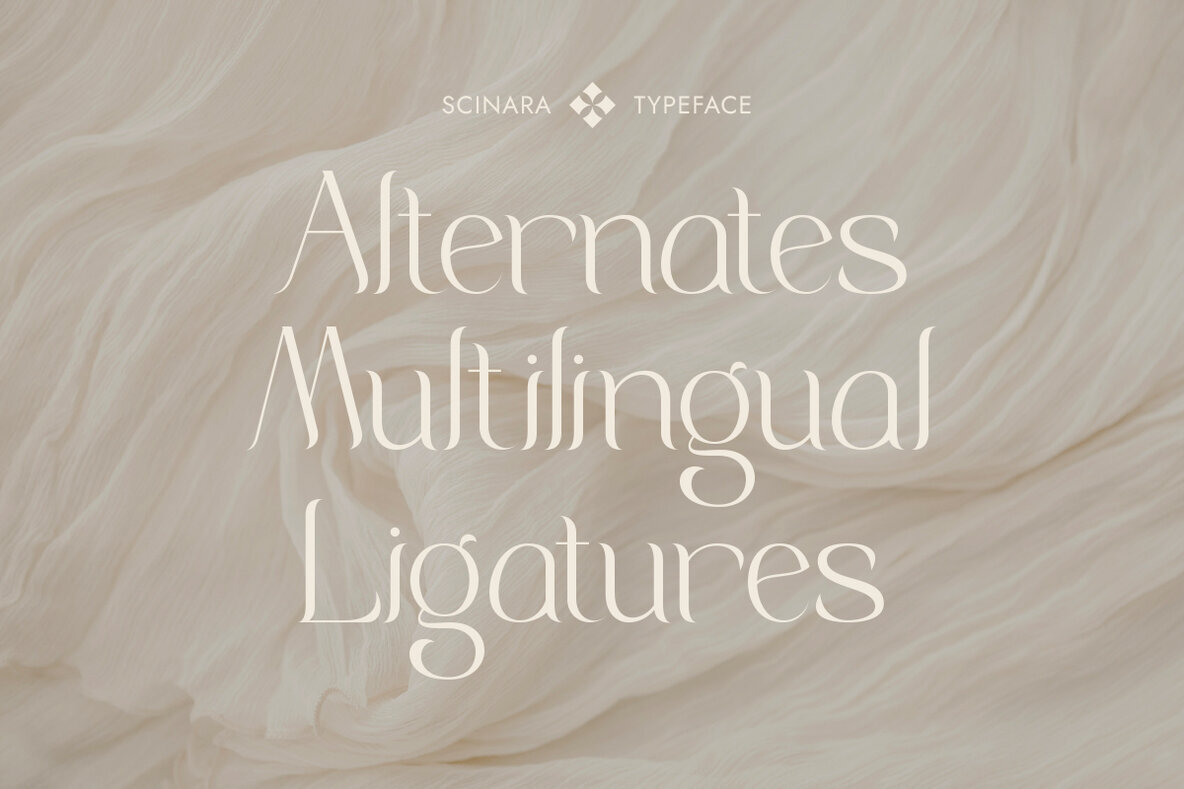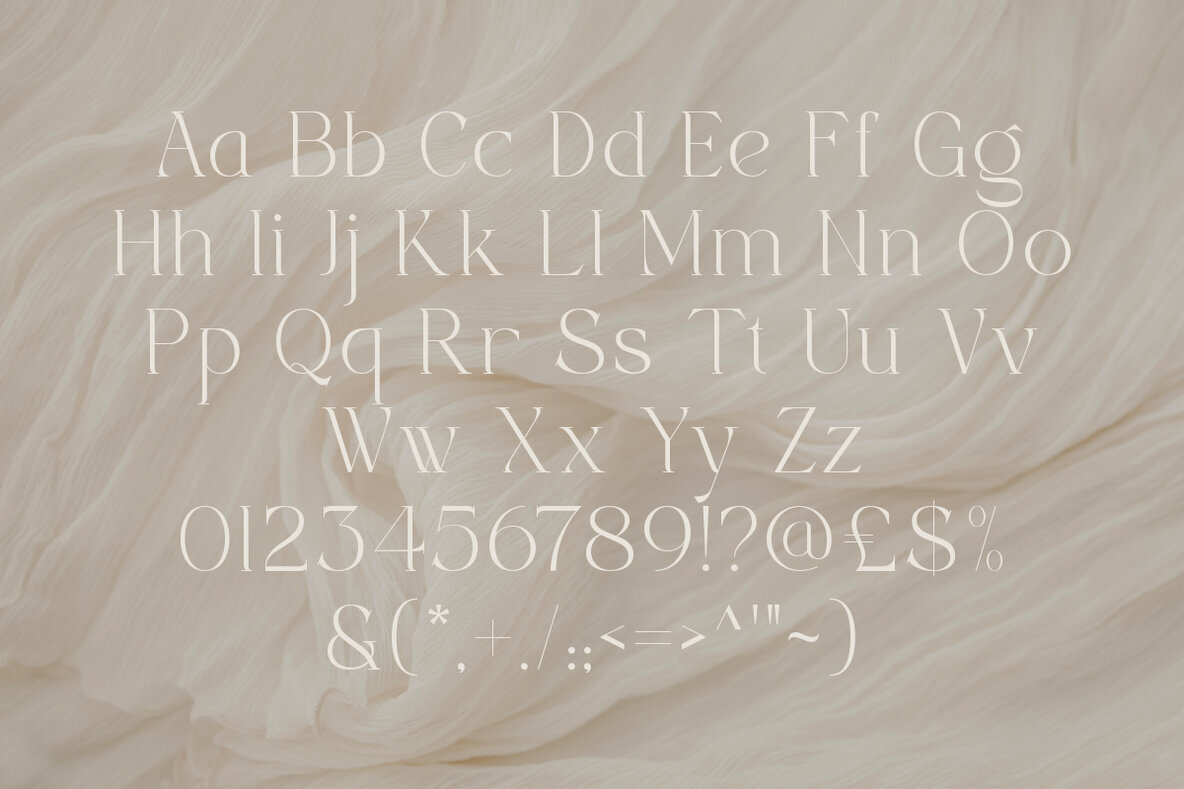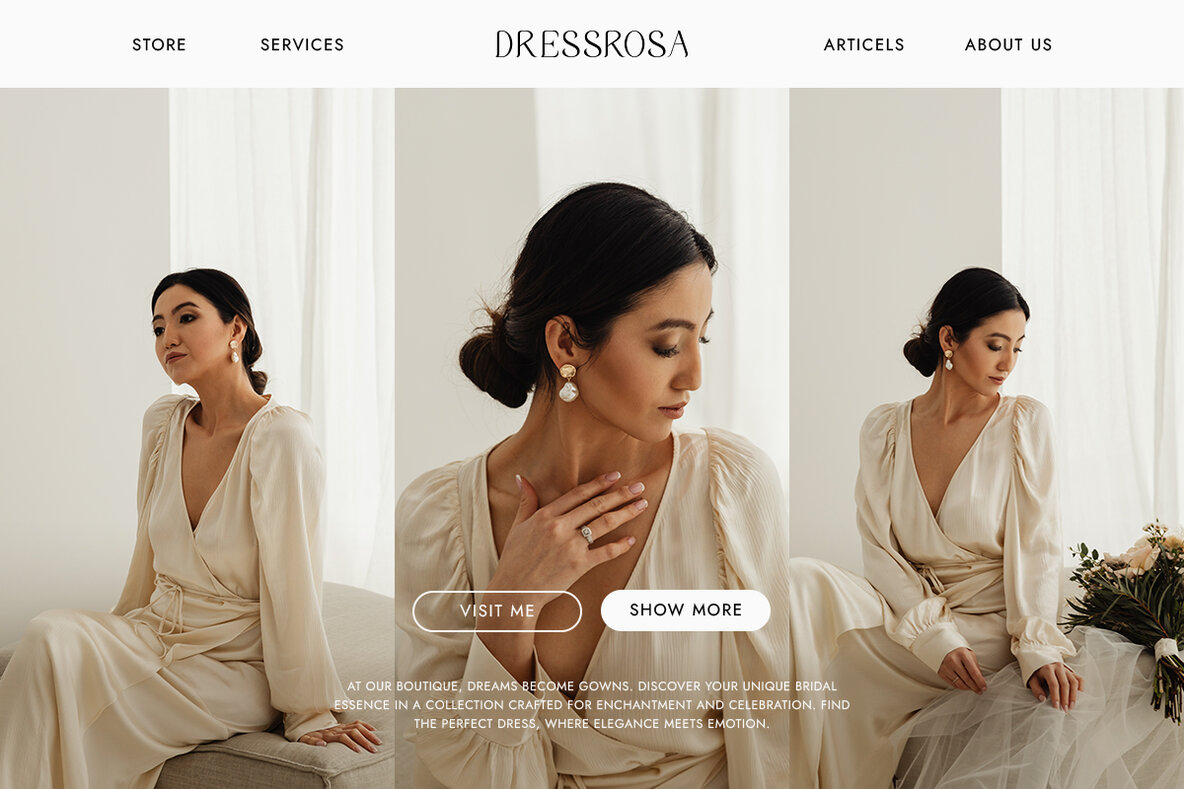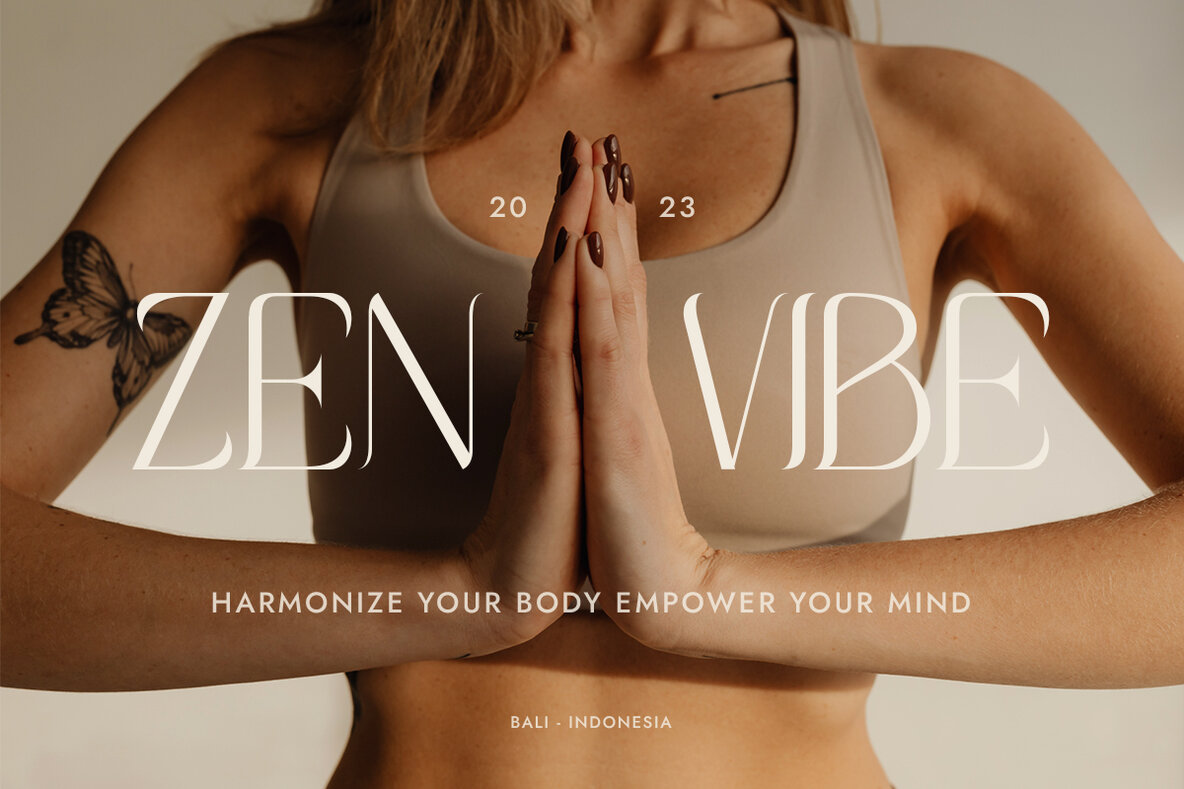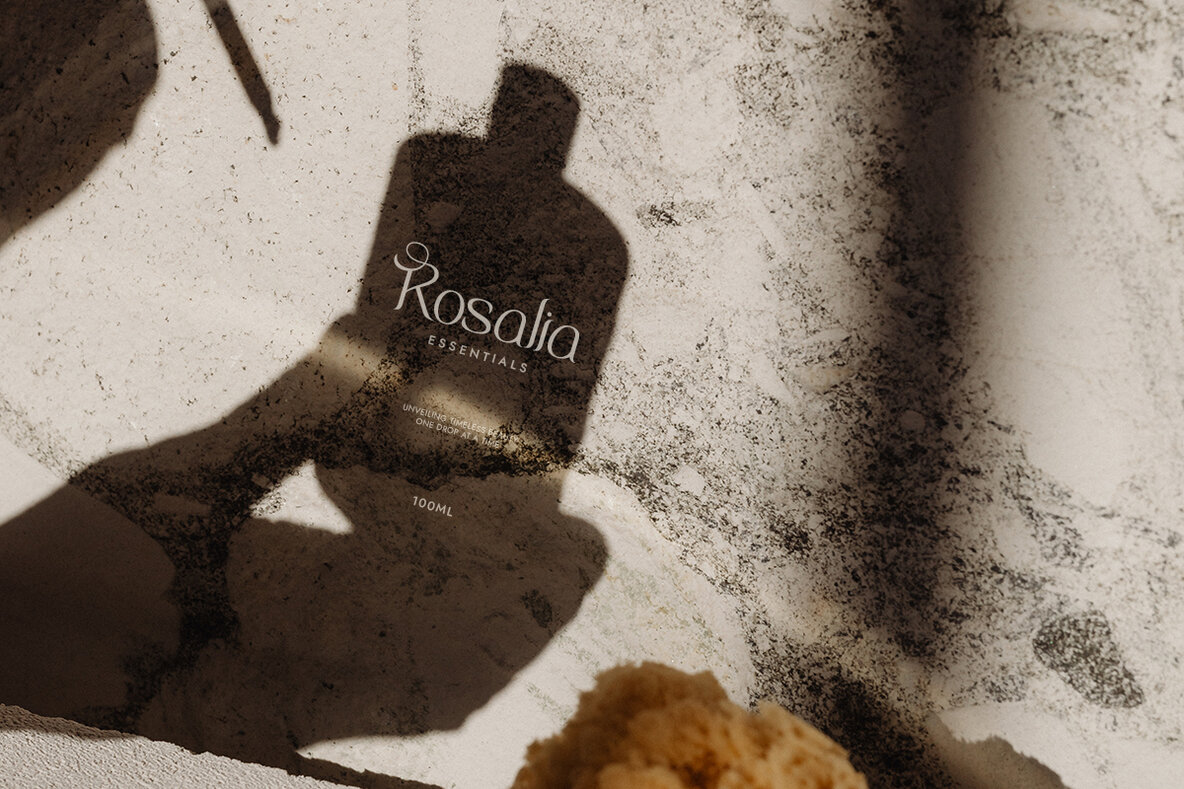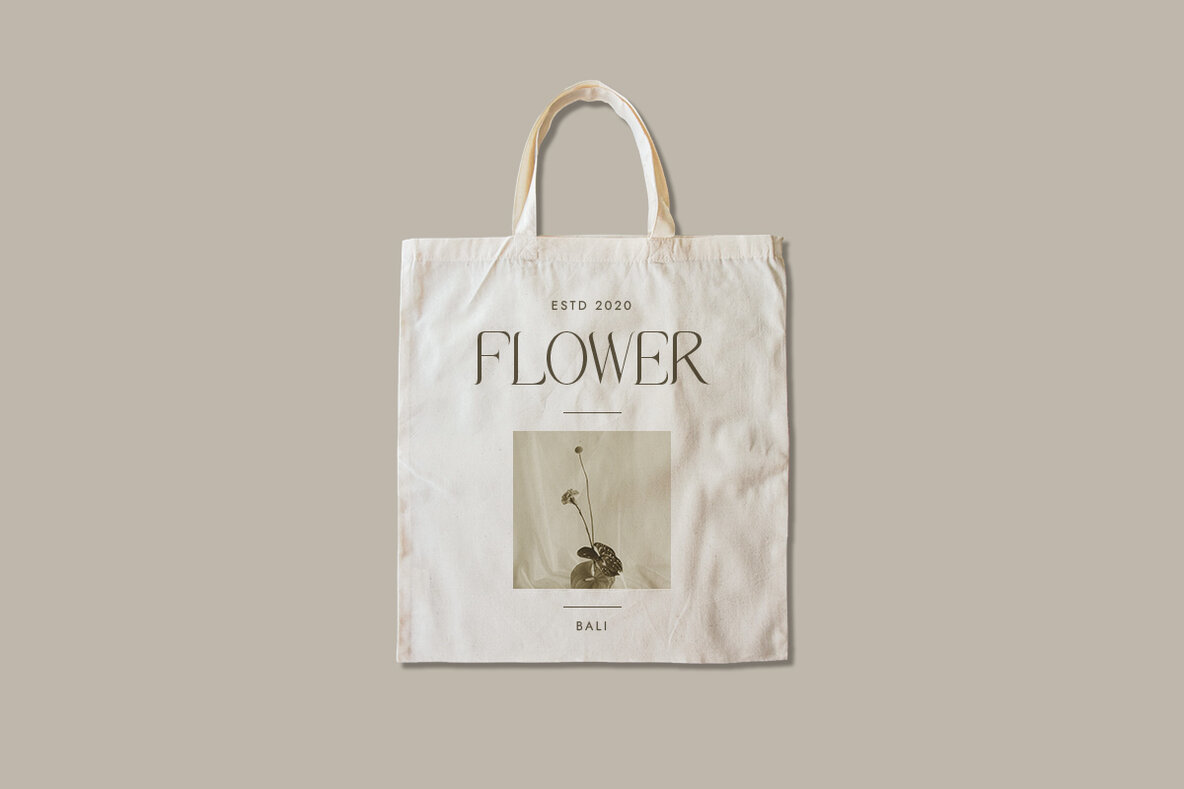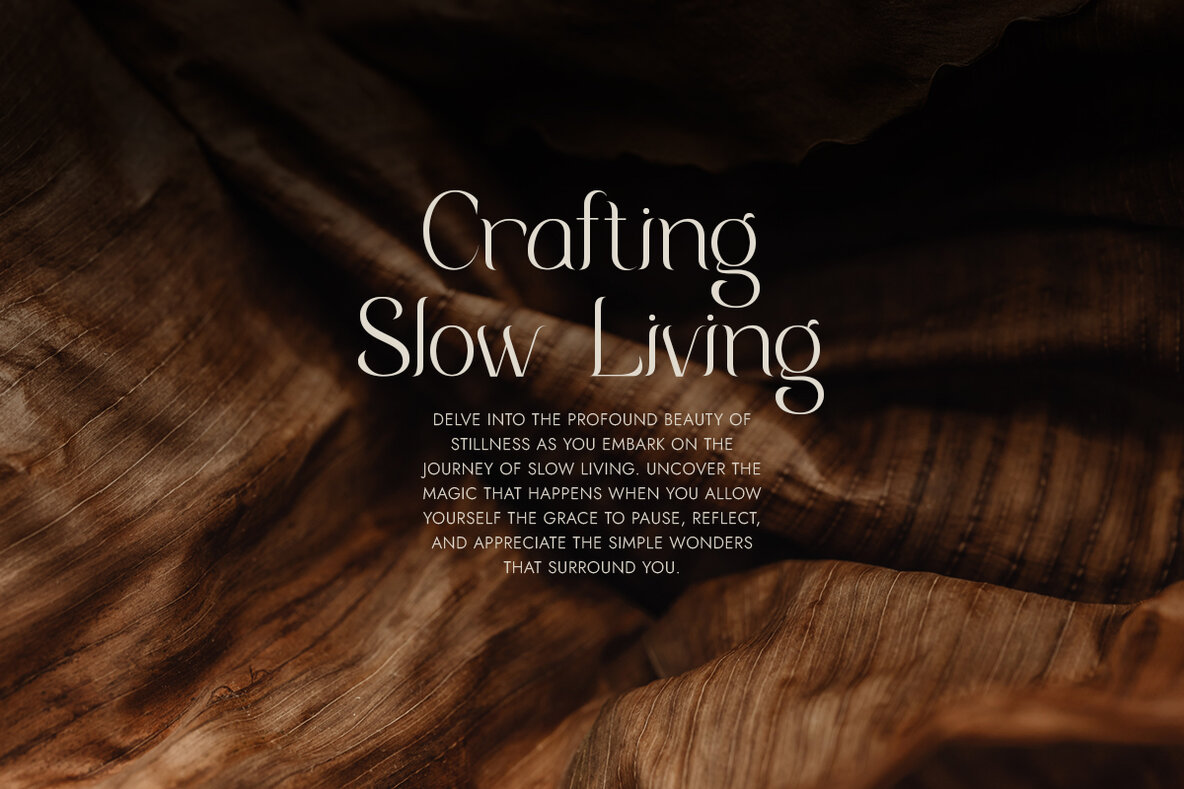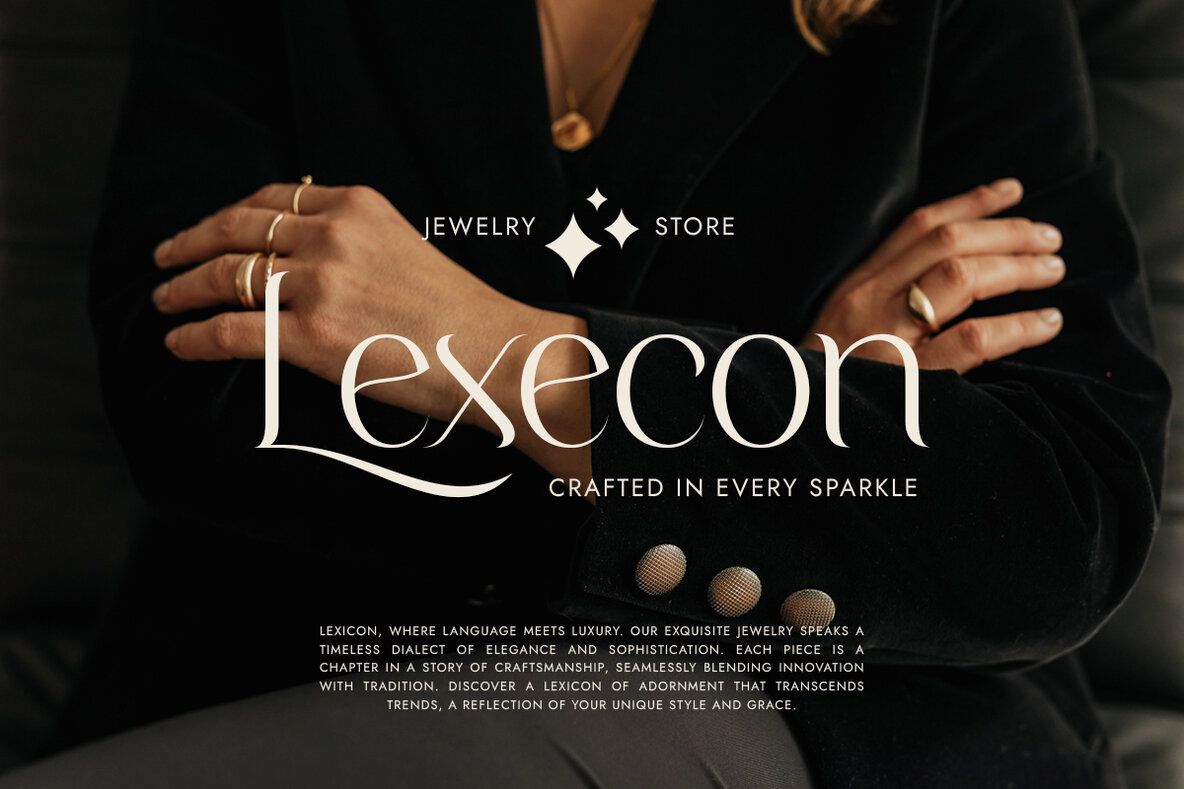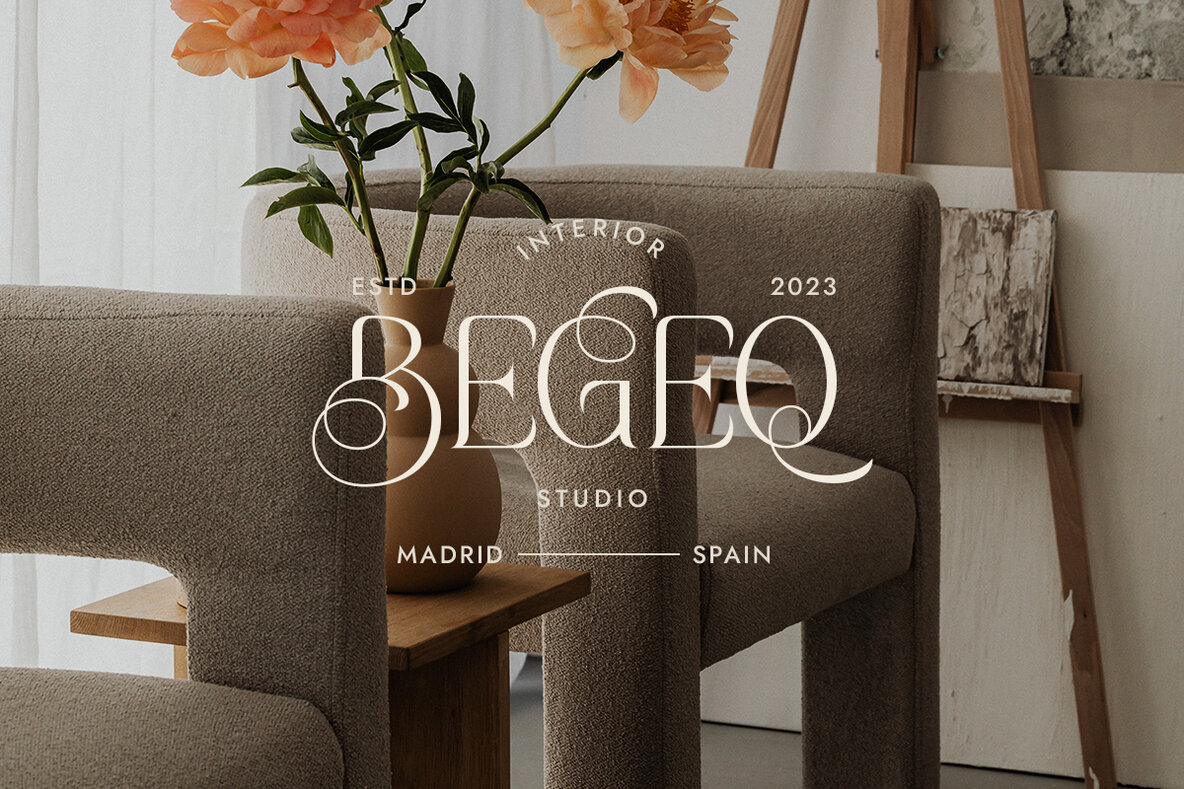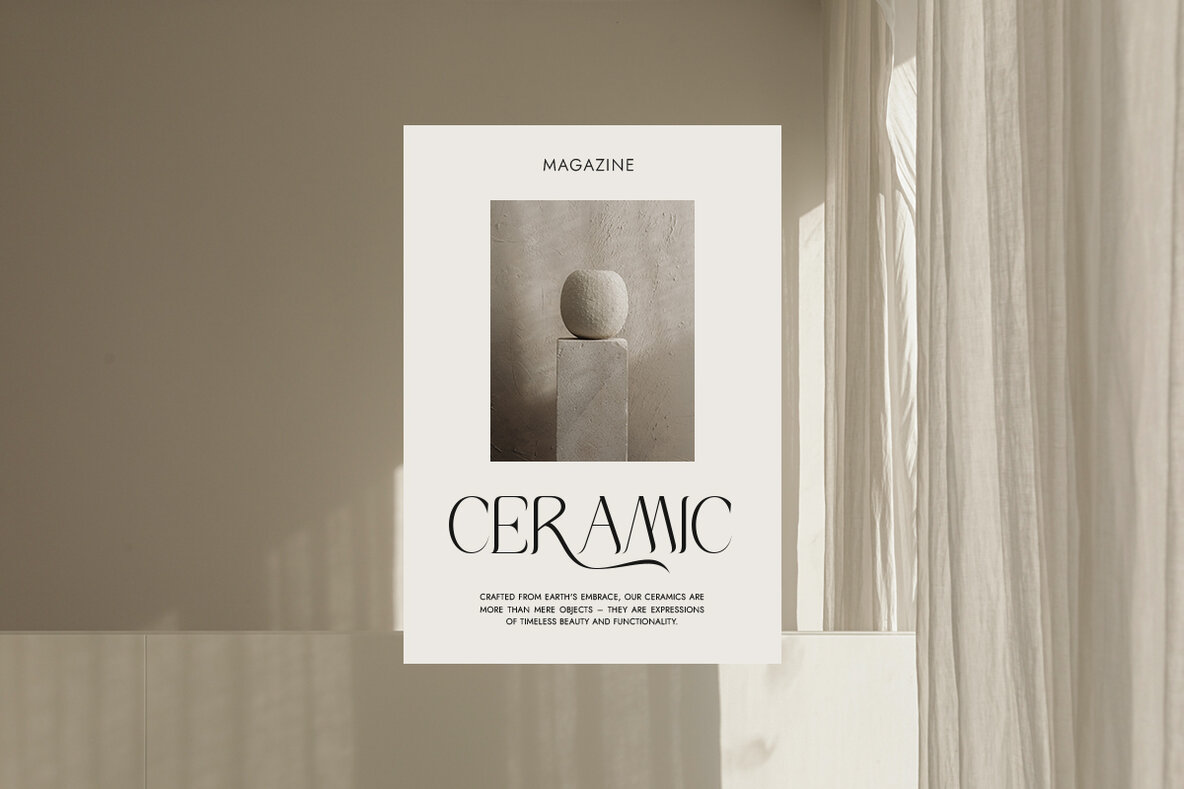
Scinara Font
Scinara Regular
Scinara is a modern elegant serif typeface, offering unique alternates and multilingual support with perfect kerning. This typeface is ideal for creating an elegant and luxury logo, classy editorial designs, women's magazines, fashion brands, cosmetic brands, fashion promotions, modern advertising designs, invitation cards, art quotes, home decoration, book and cover titles, special events, tote bags, T-shirts, advertising, and much more. If you encounter any issues while using this product or notice something we've missed, feel free to drop us a message. We'd appreciate your feedback to help us further improve our products. Thanks and have a wonderful day.Scinara: A Modern Elegant Serif Typeface